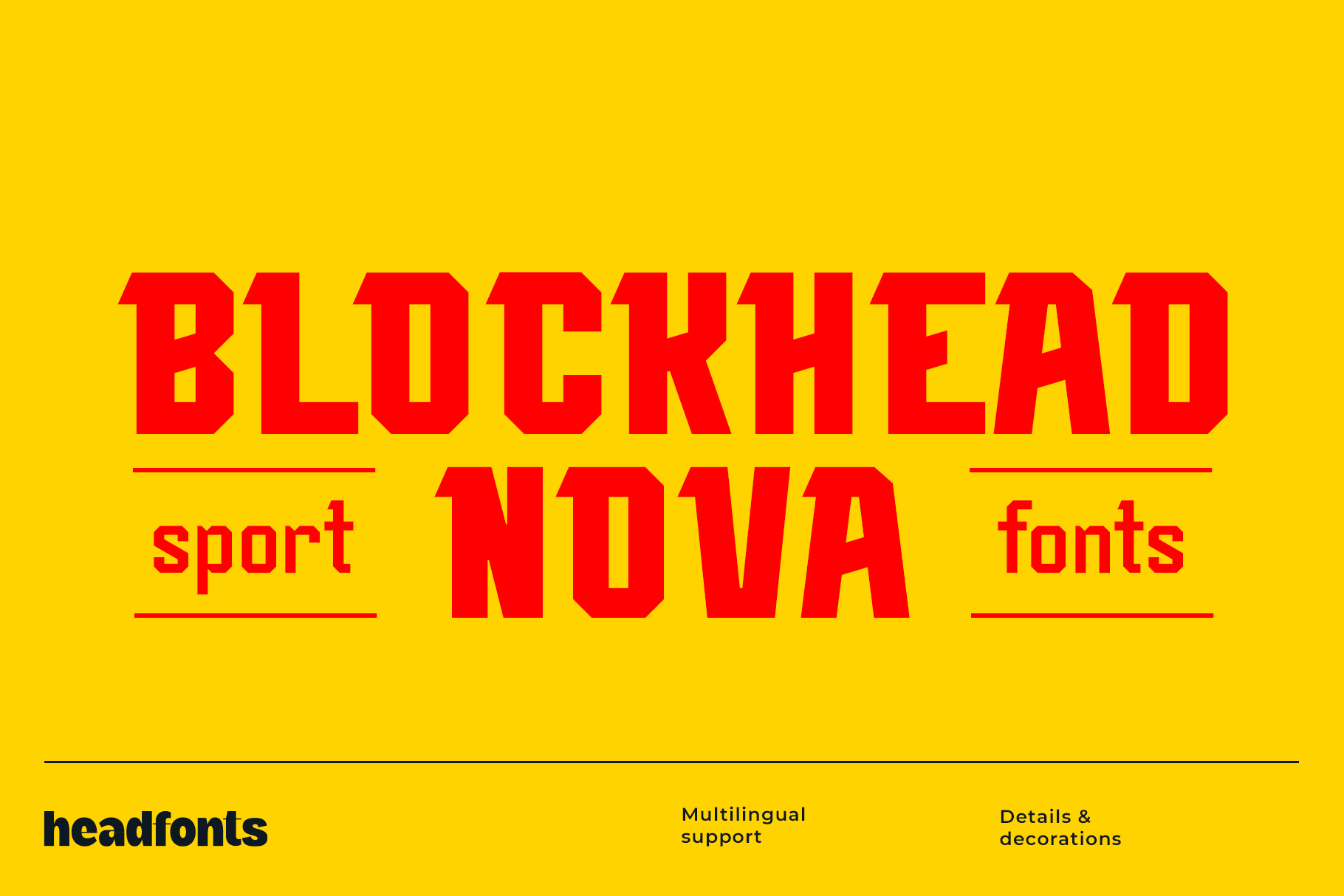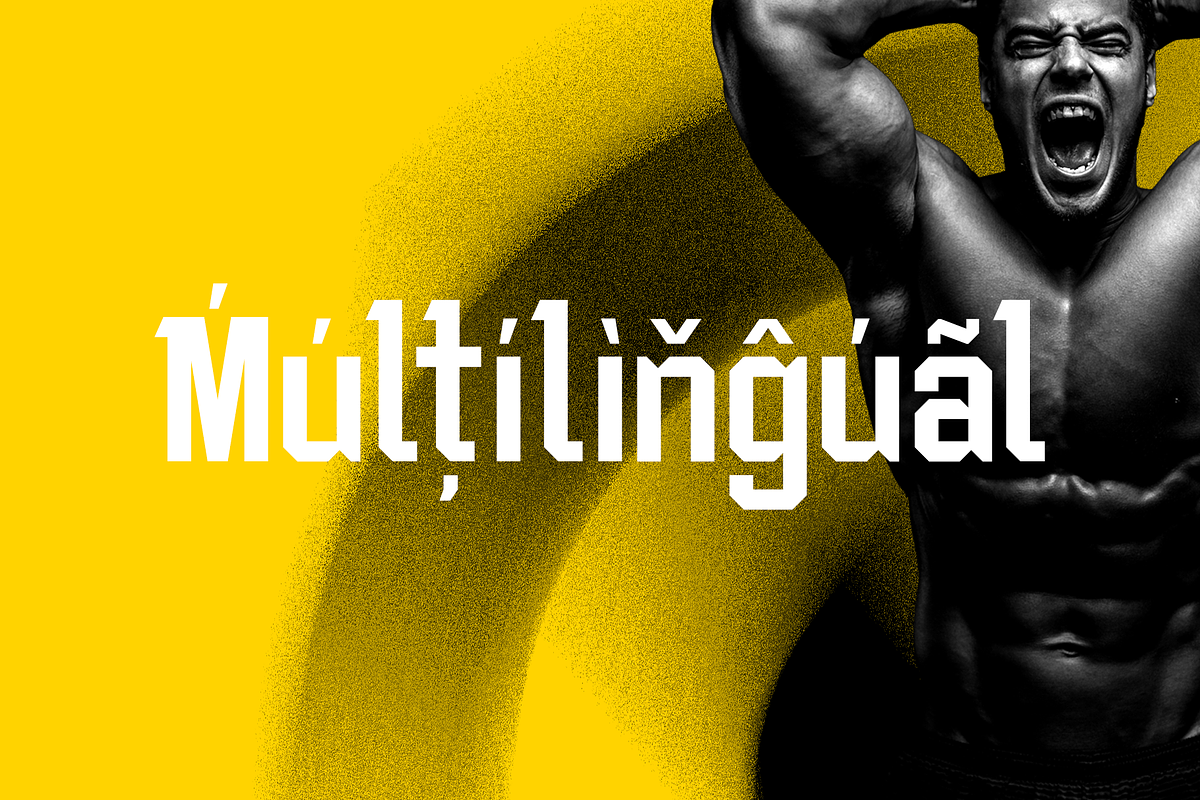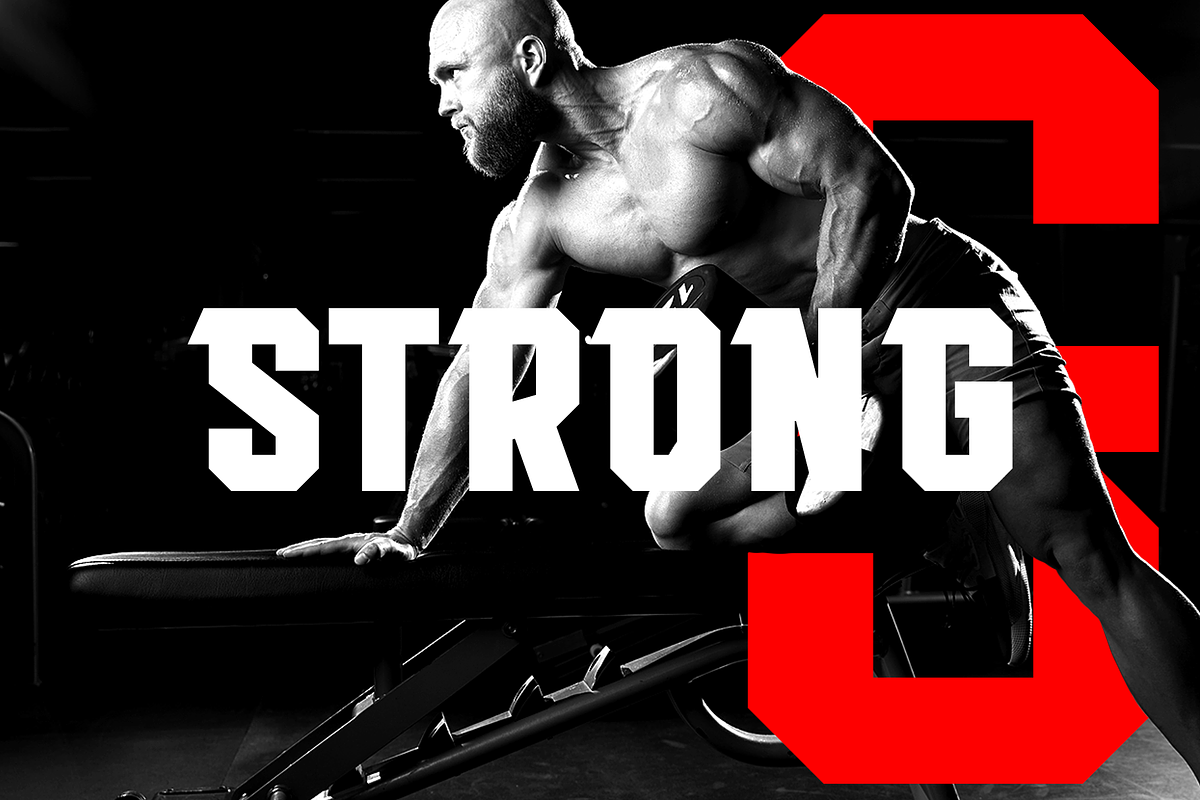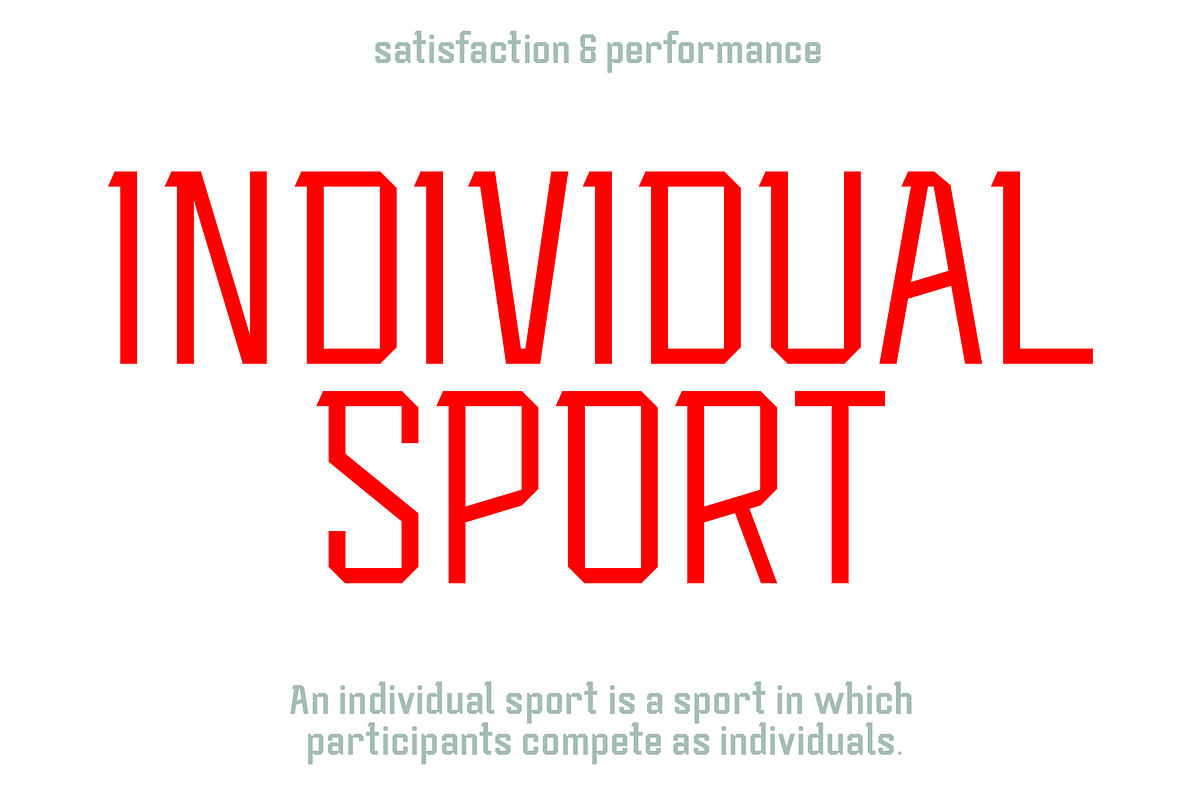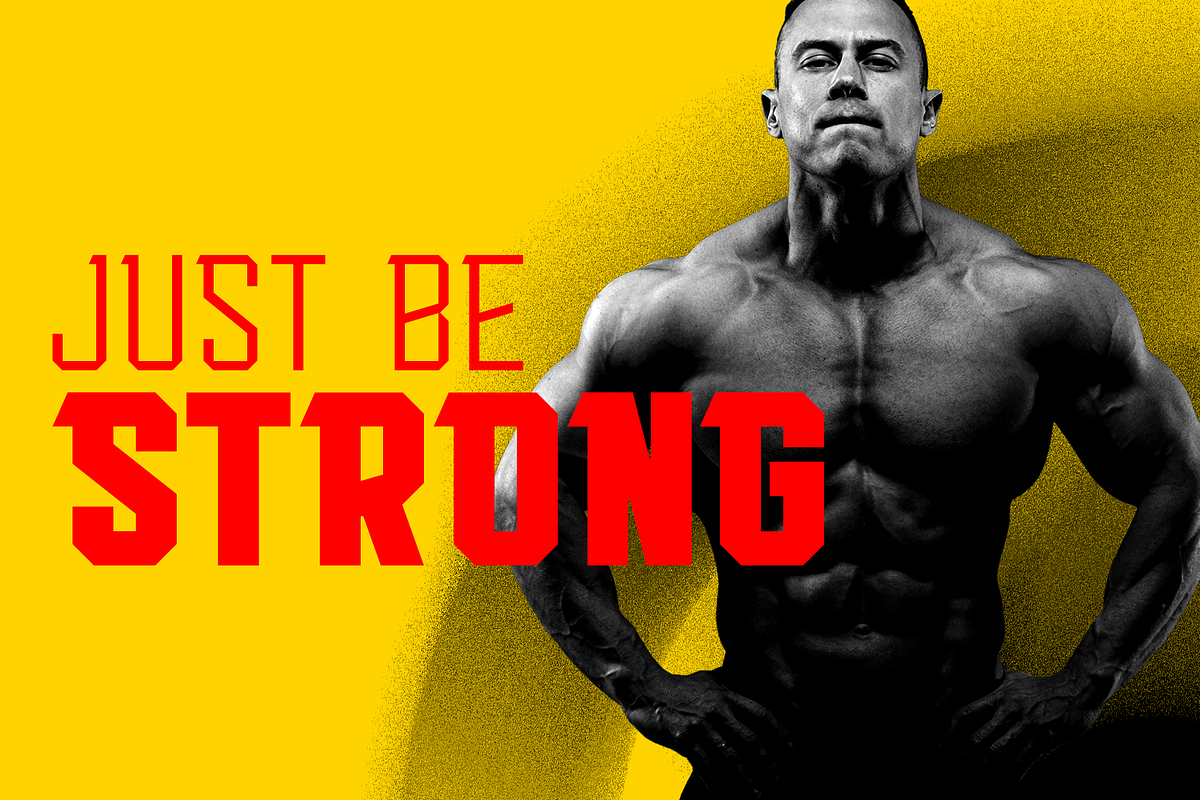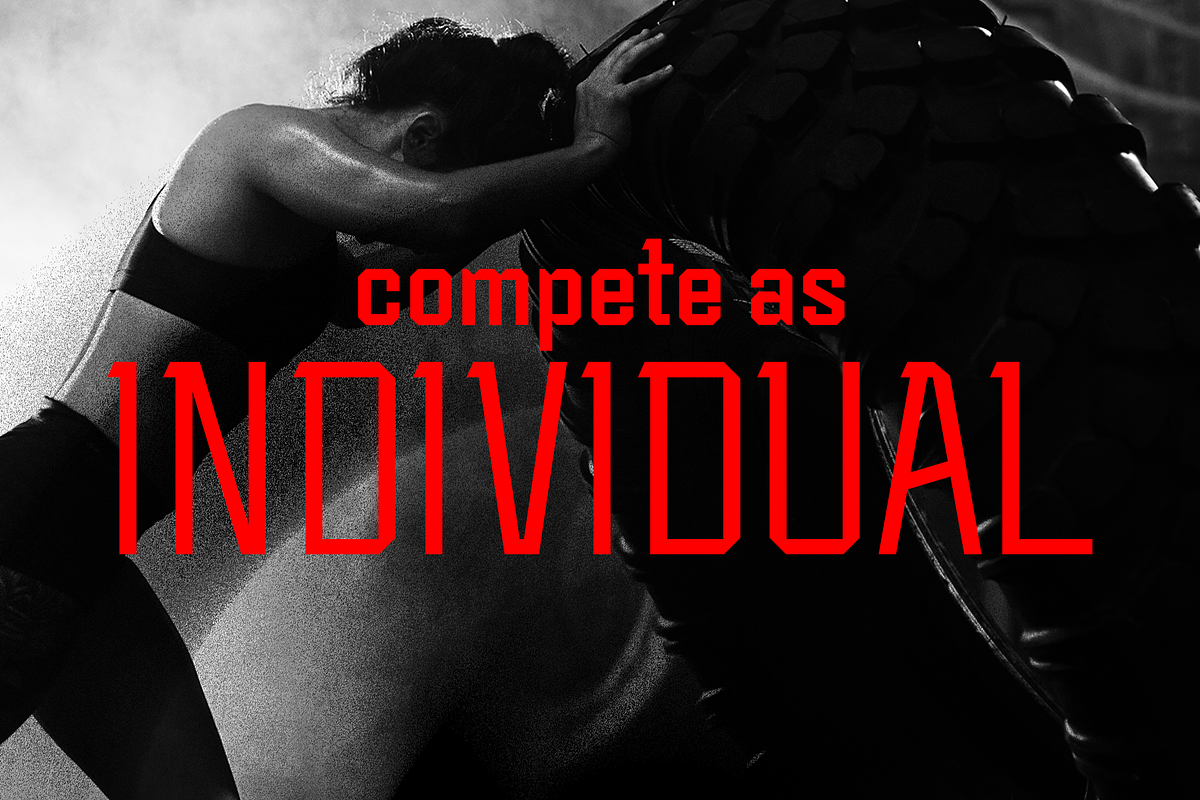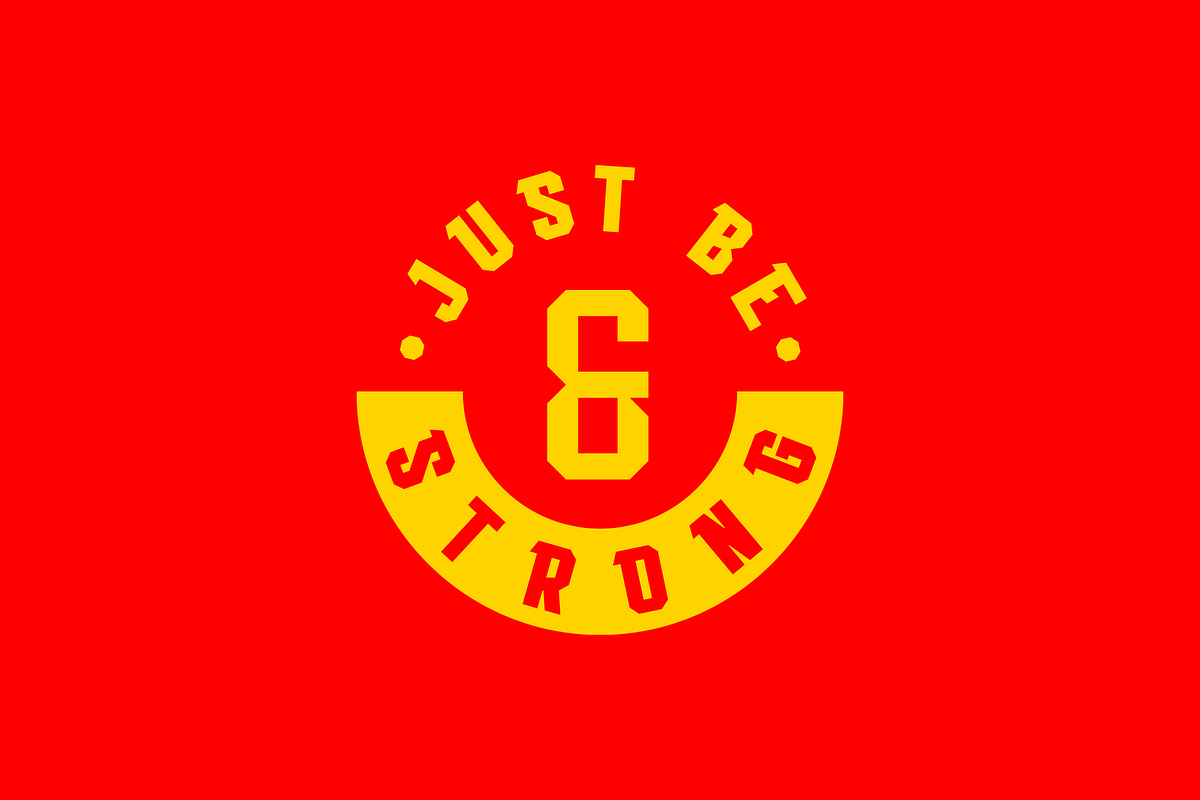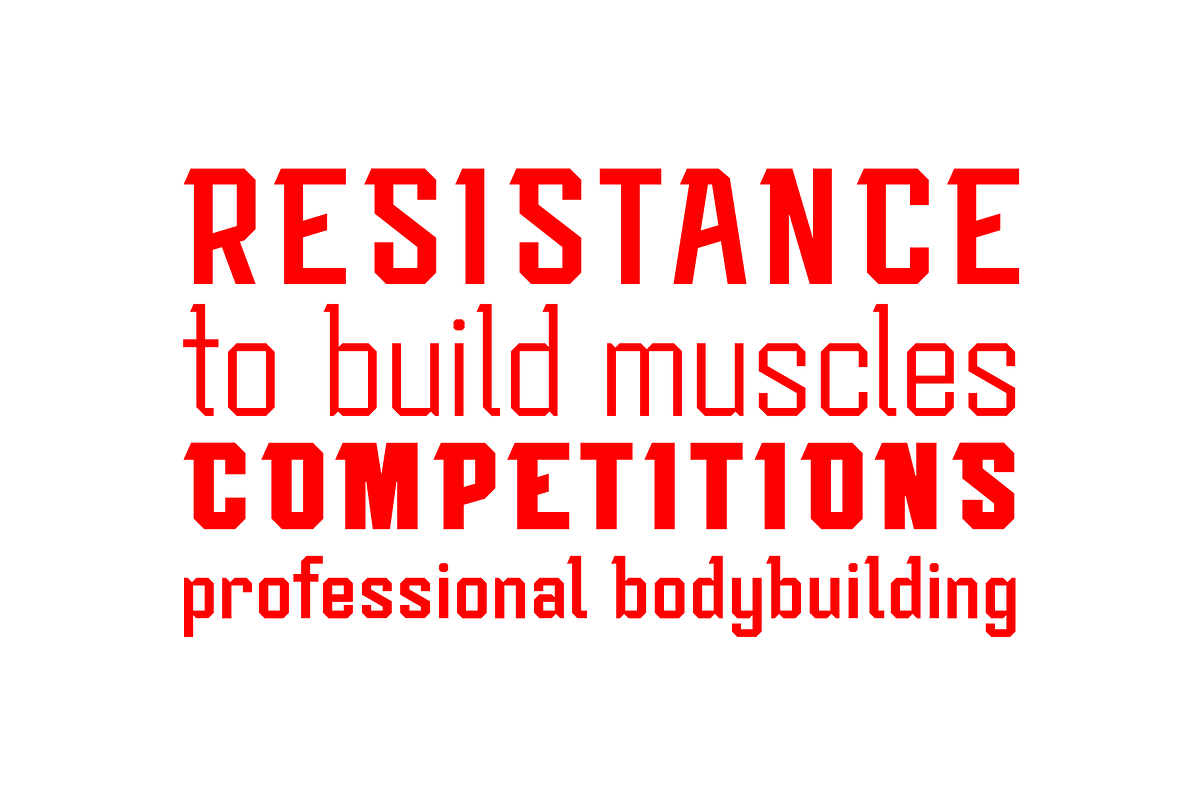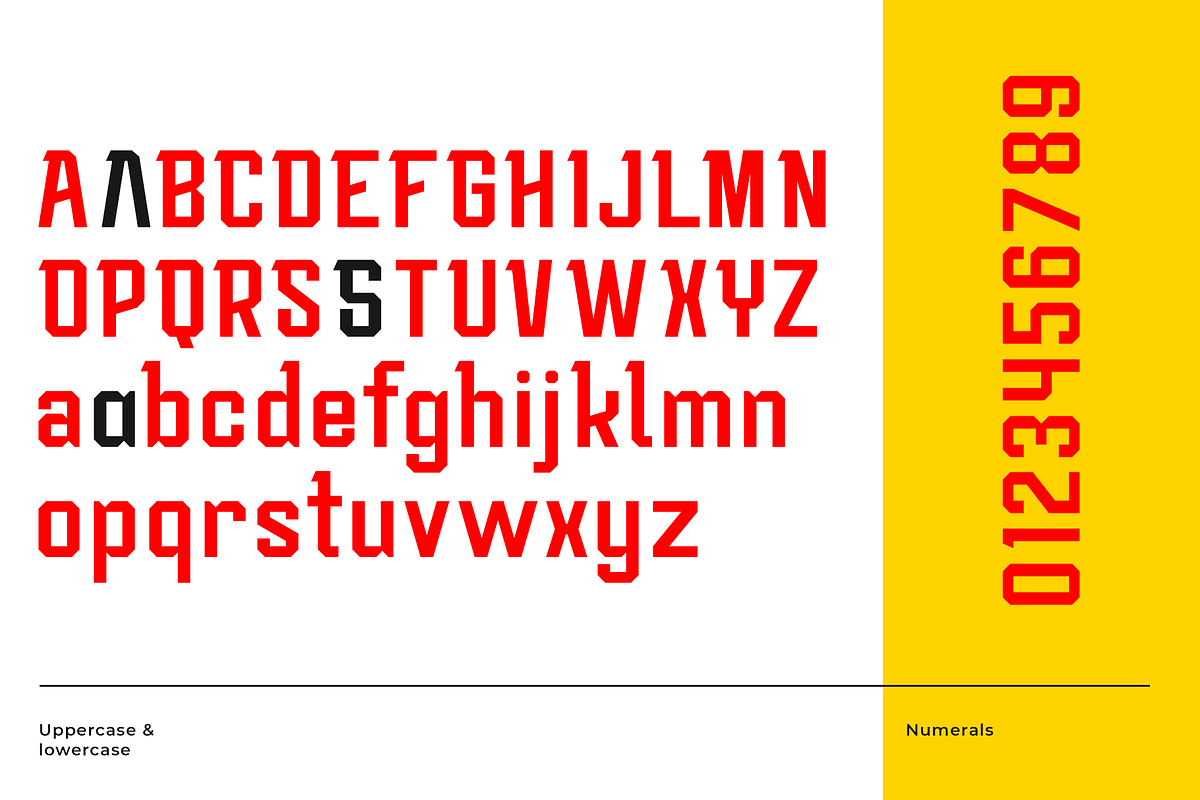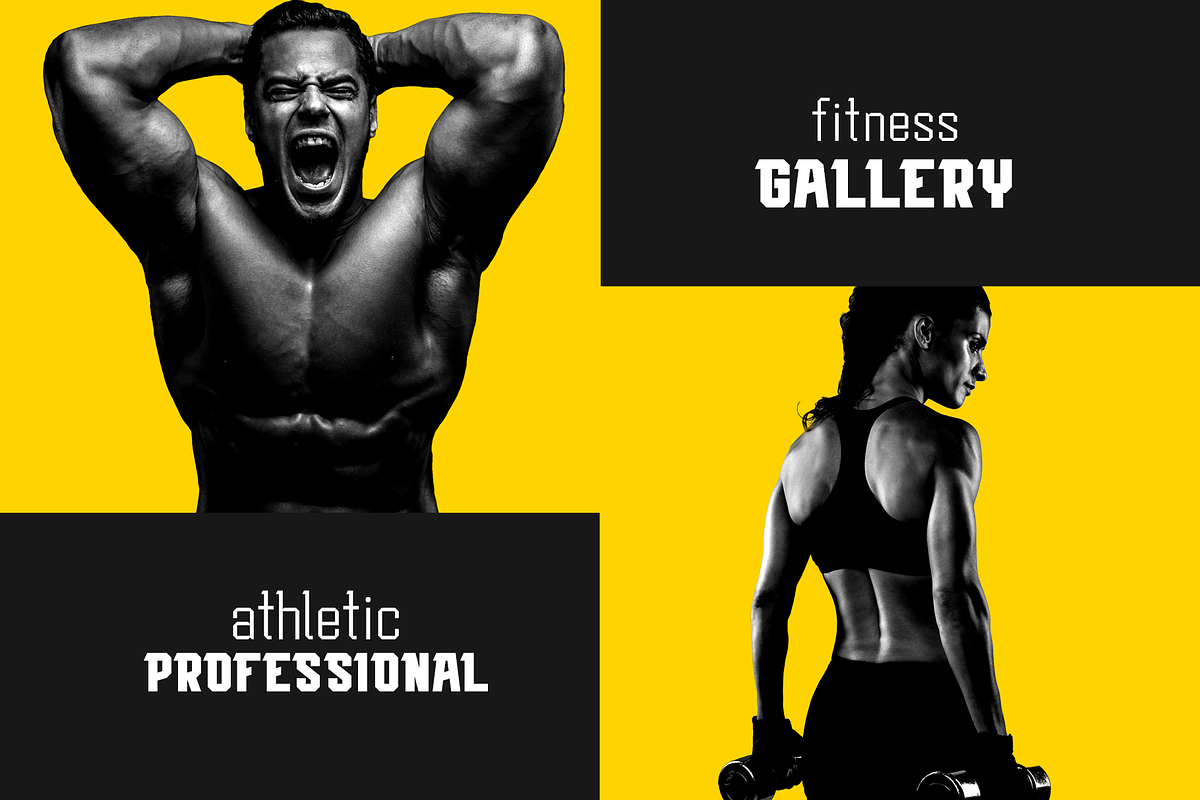
Blockhead Nova Sports Font
Happy to introduce to you the new upgrade of Blockhead, named BLOCKHEAD NOVA. This robust, sporty font was improved, now having a lowercase alphabet. This strong font was designed to draw attention and highlight any project that requires a bold feel. Design-wise Blockhead Nova, is powerful, created to add a vibrant touch to your sport-inspired designs. This typeface has three weights, geometric thick strokes with a thin, sharp slab serif in the upper part of the letterform. Blockhead Nova has extensive Latin script support, and a FREE weight for you to try out. It is perfect for industrial or sports logo designs, bold posters, headers even for small and block text. Highlight your work with the vibrant Blockhead Nova!
Blockhead Nova Regular
Blockhead Nova Bold
Extensive Latin script language support
Upper and lowercase font